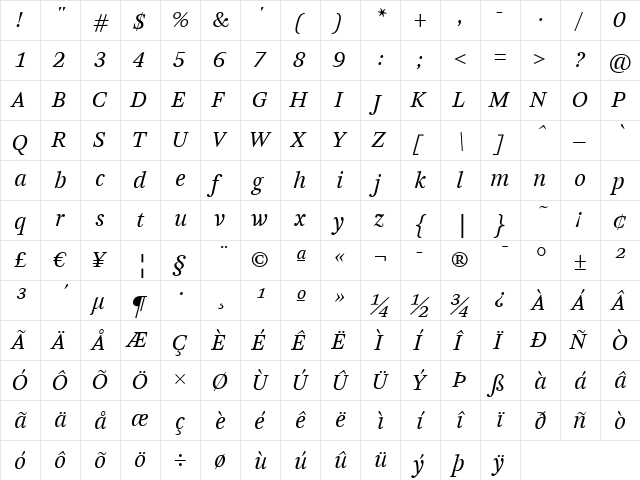
ArnhemLF-BlondItalic Regular
Design Context for ArnhemLF-BlondItalic Typeface
ArnhemLF-BlondItalic is a composed and adaptable typeface that performs quietly and consistently across a wide range of design contexts. The slanted form adds forward momentum and visual energy.
Pro Tip: Try ArnhemLF-BlondItalic for annotation and caption copy alongside an upright companion — the contrast in angle creates a dynamic but ordered typographic system.